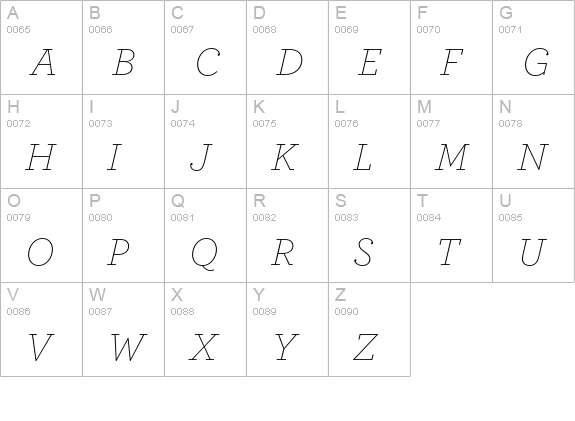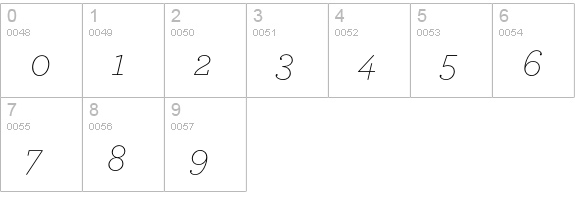
Archer Extra Light Italic Font Details
Archer Extra Light Italic is a refined, elegant, italic variant in the Archer typeface family \xE2\x80\x94 well suited to elegant body text, refined sub-headings, and luxury branding.
Archer Extra Light Italic is a sophisticated and elegant font that exudes a sense of grace and refinement. Its delicate and stylish letterforms make it perfect for projects that require a touch of sophistication and class. The italicized design adds a sense of motion and fluidity to the text, making it ideal for conveying a sense of elegance and style. What sets Archer Extra Light Italic apart is not just its aesthetic appeal, but also its accessibility. This high-quality font is available for free download at FontsMarket.com, allowing designers and enthusiasts alike to easily access and utilize this beautiful typeface in their projects. With its timeless charm and versatility, Archer Extra Light Italic is sure to elevate any design to new heights of elegance and sophistication.